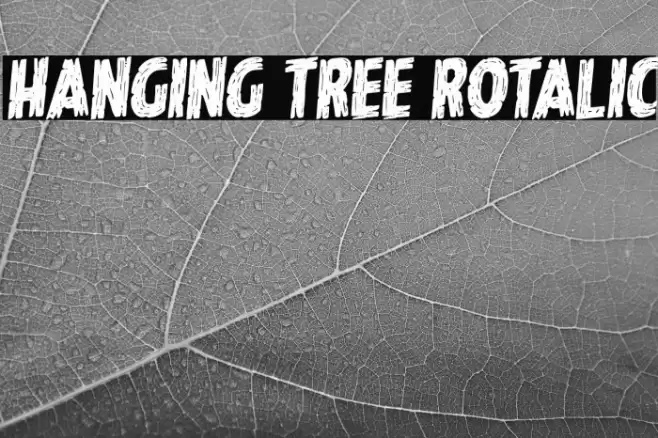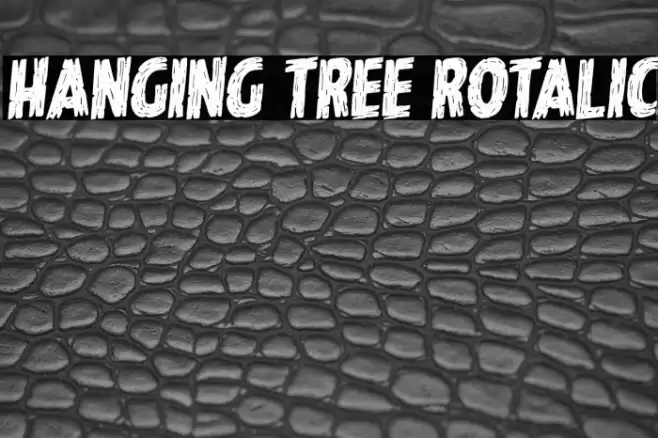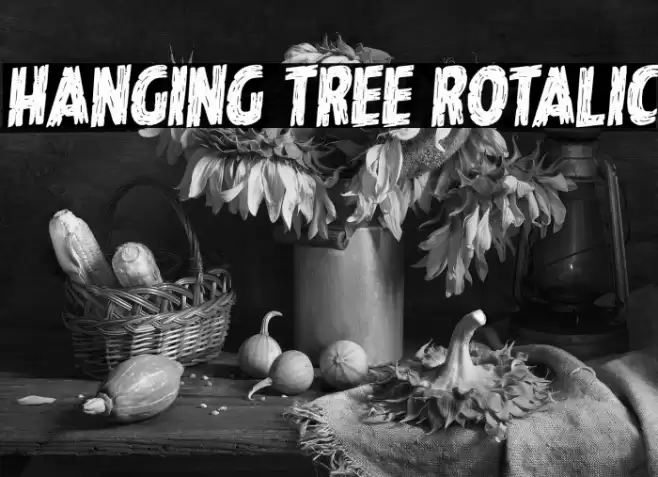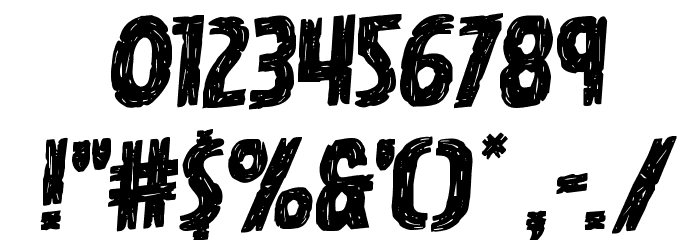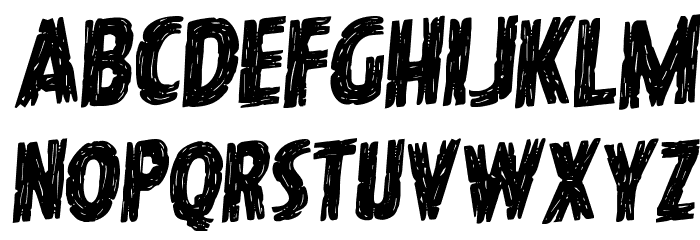
Hanging Tree Rotalic Font
Hanging Tree Rotalic Description
This font features a bold, hand-drawn style with a rough, textured appearance. The characters are slightly slanted, giving them a dynamic and energetic feel. The strokes are uneven, creating a sense of movement and spontaneity. Each letter is distinct, with a playful yet edgy aesthetic that stands out. The numbers and special characters maintain the same rugged style, ensuring consistency across all elements. This font is ideal for projects that require a bold statement or a creative, artistic touch.
A bold, textured, hand-drawn font with a dynamic and edgy style from Uncategorized fonts.
- Proposed Projects: Ideal for posters, album covers, graffiti art, and any project needing a bold, artistic flair.